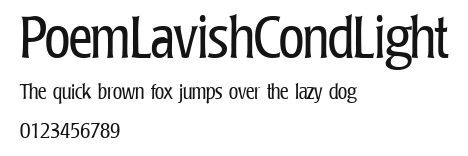
About PoemLavishCondLight.ttf
PoemLavishCondLight.ttf is a modern, elegant sans-serif font designed for ultimate readability and visual harmony. Perfect for branding, headlines, web design, and print materials.